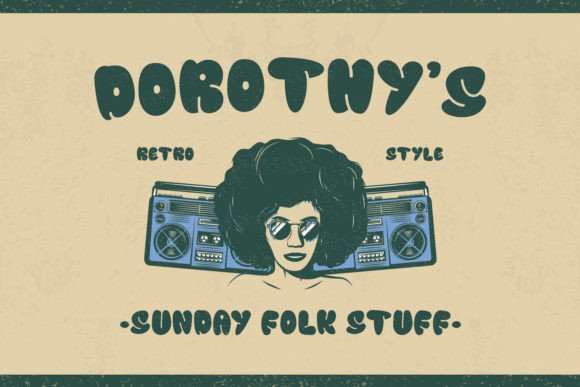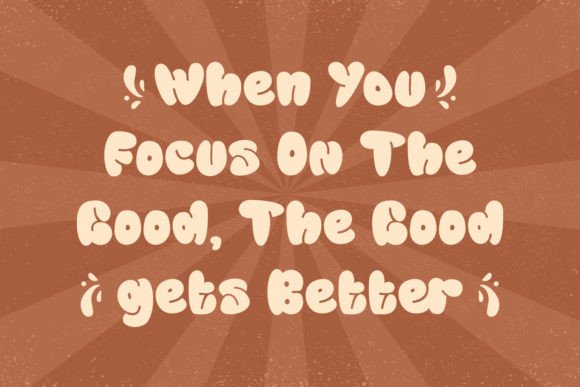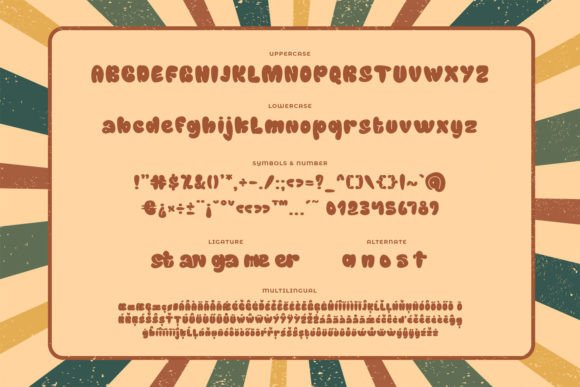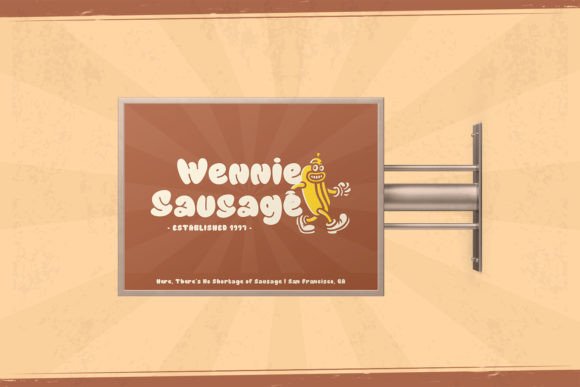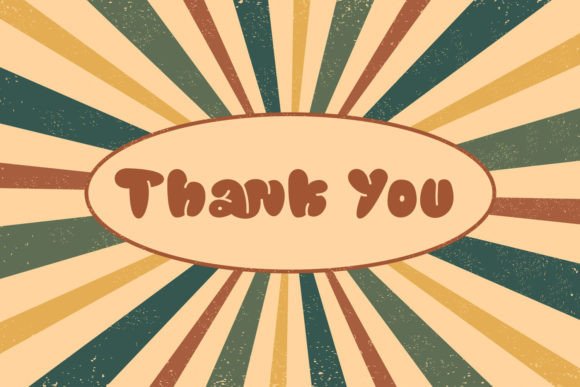
Introduction to Man Craftest Font Font
Fonts play a crucial role in design, and the Man Craftest Font font is a typeface that brings both character and versatility to any project. Whether you’re working on a branding project, a website, or a print design, the Man Craftest Font font offers a unique style that can elevate your work.
Man Craftest is a fun and playful retro display font.
Its unique letter forms make this font perfect for groovy band posters, hippie logos, social media posts, packaging, magazine covers, and more .
The Man Craftest Font font is more than just a typeface – it’s a design tool that helps you communicate your message with style and clarity. Its unique character set and versatile design make it suitable for a wide range of applications, from elegant invitations to bold headlines.
With its carefully crafted letterforms and balanced proportions, the Man Craftest Font font ensures readability and visual appeal across all mediums.
What makes Man Craftest Font font special?
The Man Craftest Font font stands out with its unique design, exceptional readability, and versatility across various design applications.